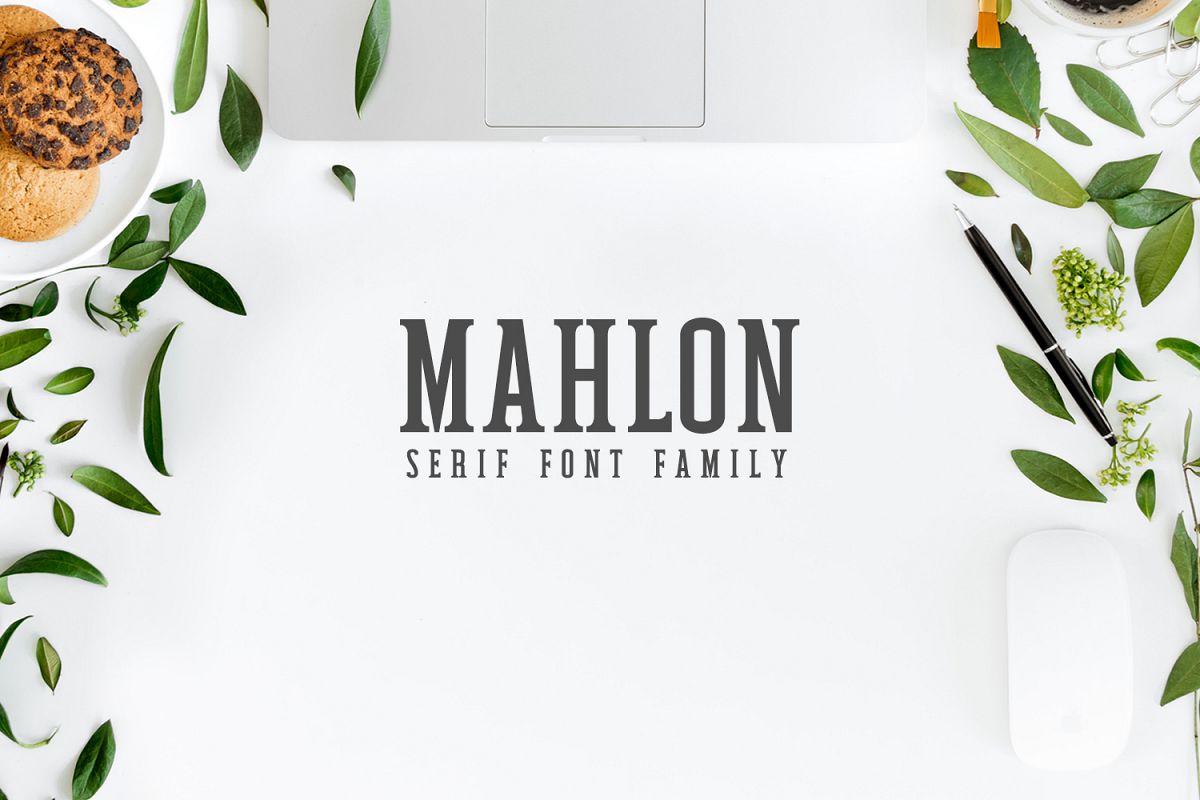
Mahlon Serif 3 Font Family Pack
Mahlon is a beautiful minimal serif font with strong personality, that makes it perfect for use in the headline, wedding invitation, greeting cards, T-shirt, branding and logo projects, merchandise, social media posts, product packaging, or any design that you create.
• Font Weight: Regular, Thin and Light
Mahlon Font Features:
• Uppercase Multilingual Letters
• Lowercase Multilingual Letters
• Numbers and Punctuation
• Alternative